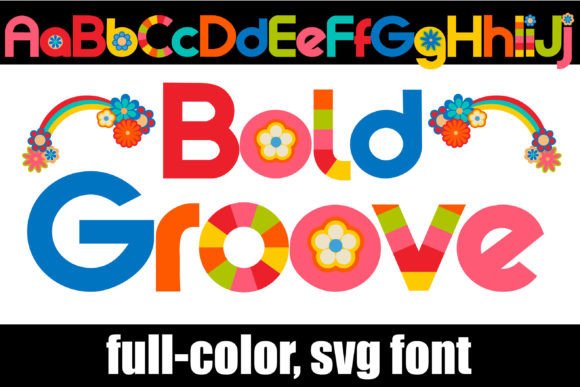
Add a Splash of Cheer with Bold Groove Font
Have you ever been in the middle of a design project, pouring your heart and soul into it, only to realize that it’s missing that special something? I recall a particularly frustrating experience when I was working on a client’s wedding invitation. The design was beautiful, but the font I chose just wasn’t doing it justice. The client wanted something lively, playful, and whimsical, but I was struggling to find the perfect fit. That’s when I stumbled upon Bold Groove Font, and it completely transformed my design.
A Personal Review of Bold Groove Font
I’m excited to share my honest review of Bold Groove Font with you. Here’s what I love about it:
- ✨ Unique Style and Hue for Each Letter: This font boasts a colorful and lively personality, with each letter having its own distinct style and hue. It’s perfect for adding a touch of whimsy to your designs.
- 🎉 Perfect for Playful Designs: Whether you’re creating invitations, social media posts, or marketing materials, Bold Groove Font is sure to infuse your words with playful and whimsical energy.
Now, I’m not going to sugarcoat it – there are a few small quirks to be aware of:
- 🤔 Learning Curve for OpenType Features: If you’re new to using OpenType features, it might take some time to get familiar with the various glyphs and stylistic alternates. But trust me, it’s worth it!
- ⚠️ Limited Use Cases: While Bold Groove Font is perfect for playful designs, it might not be the best fit for more formal or corporate projects. Keep that in mind when choosing a font for your next project.
The Story Behind Bold Groove Font
Bold Groove Font was created by a talented designer who wanted to infuse a sense of playfulness and whimsy into the world of typography. Inspired by the vibrant colors and lively energy of street art, the designer crafted a font that would bring a smile to people’s faces. With its unique style and hue for each letter, Bold Groove Font is sure to add a splash of cheer to your designs.